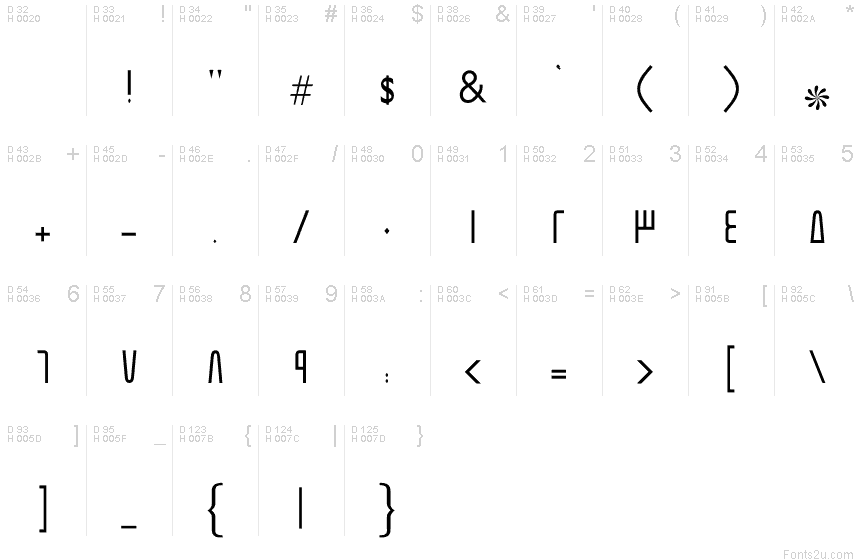
GE Modern by Boutros International is a free contemporary Arabic sans serif with clean, subtly changing stroke widths and a compact, orderly, upright silhouette. Rounded joins gently soften the strongly horizontal construction. Its dots and small marks remain crisp and geometric.
Its modern Arabic character suits publishing and digital graphics, especially projects that need an efficient, current, professional voice. It also fits cultural event posters and information-led signage. In branding, the disciplined shapes can form a practical product identity for Arabic-speaking markets.